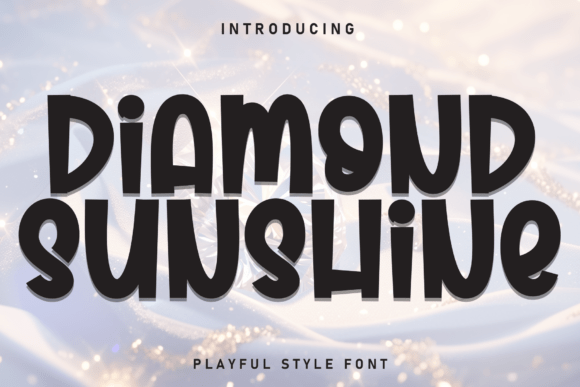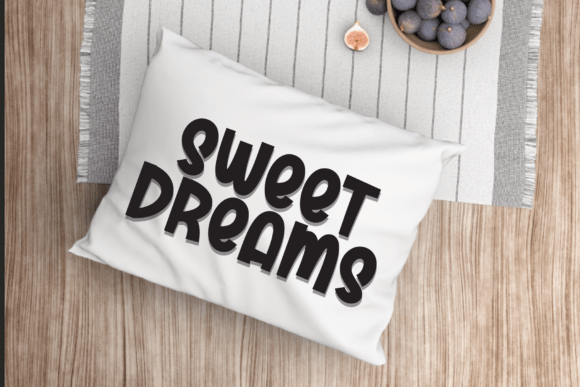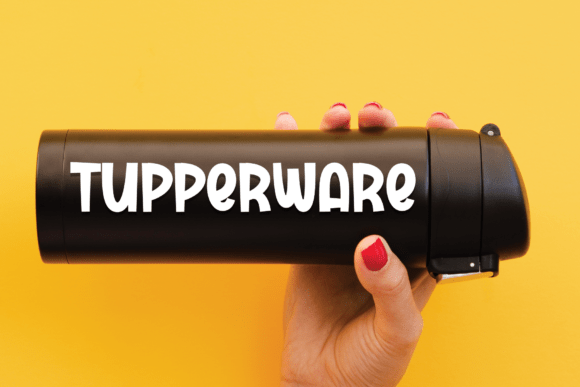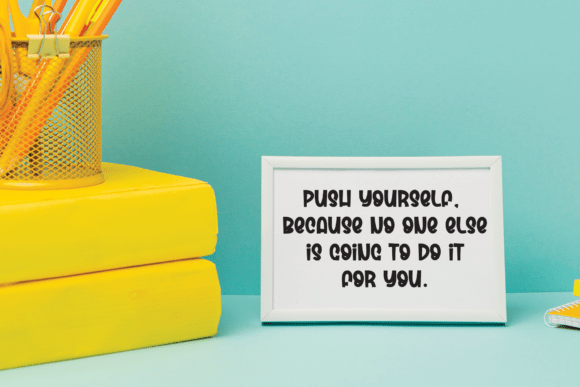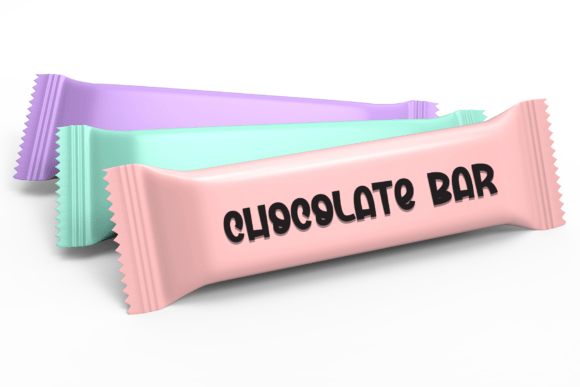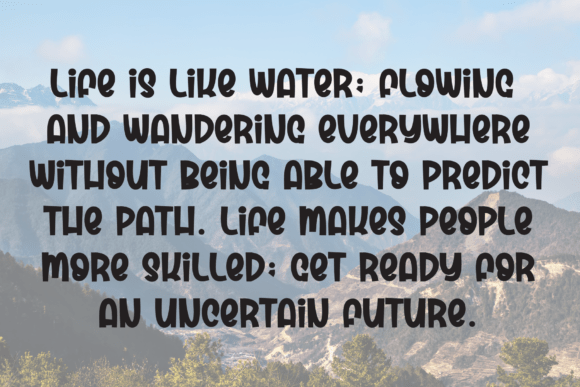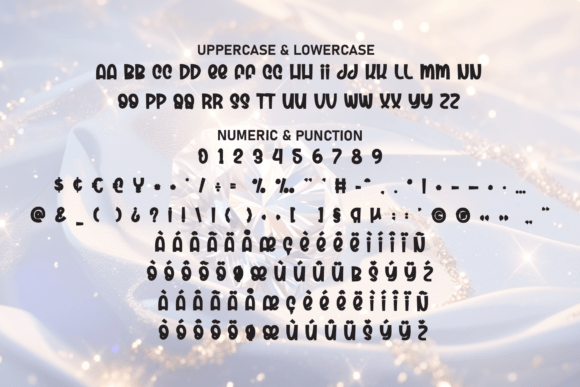
Adding a Splash of Joy to Your Designs
Remember that moment when you were a kid, sitting in a classroom, surrounded by colorful posters and stickers? The ones that made you feel happy and excited to learn? That’s exactly what the Diamond Sunshine Font aims to capture – the magic of childhood wonder and curiosity.
As a designer, you know how hard it can be to find the perfect font that brings a project to life. That’s where Diamond Sunshine Font comes in – a cheerful and bouncy handwritten font packed with personality. Its bold letters and smooth curves bring a fun, casual energy that’s perfect for adding a splash of joy to your designs, whether it’s a classroom poster, a kid’s project, or a greeting card.
Diamond Sunshine Font Key Features
- Size: Supports font sizes from 8 to 1000 points
- Resolution: Supports high-resolution fonts for print and web use (up to 300 DPI)
- Unique Characteristics: Unique, hand-drawn style with a mix of modern and vintage elements; Perfect for creating a unique and eye-catching visual identity
- Character Set: Includes a wide range of characters, including Latin, Cyrillic, and Greek alphabets, as well as punctuation and symbols
- Font Styles: Includes regular, bold, italic, and bold-italic font styles for added versatility
Diamond Sunshine Font Review
I recently had the chance to work with the Diamond Sunshine Font, and I must say, it’s a unique and eye-catching choice. ✨
- One of the standout features of this font is its ability to evoke a sense of warmth and optimism. It’s perfect for designs that require a touch of sunshine.
- The font is highly customizable, with a range of sizes and styles to choose from. This makes it ideal for both digital and print designs.
- The Diamond Sunshine Font also works well with a variety of color schemes, from bright and bold to soft and pastel.
However, there are some limitations to consider. ⚠️
- The font may not be suitable for designs that require a more formal or professional tone. It’s best used for creative or playful projects.
- The font can be quite busy, with intricate details that may be overwhelming in certain contexts.
Overall, I think the Diamond Sunshine Font is a great choice for designers who want to add a touch of whimsy and personality to their work. While it may not be the best fit for every project, it’s certainly a unique and eye-catching option.
Getting the Most Out of Diamond Sunshine Font
To get the most out of the Diamond Sunshine font, use it for:
- Party and event decorations
Remember to pair the Diamond Sunshine font with complementary colors and design elements to enhance its unique charm.
Alex Brush is a beautiful, elegant script font that’s perfect for use in headings, titles, and body text where you want to convey a sense of sophistication and refinement. It’s great for use in designs that require a touch of luxury and glamour.
Compared to Diamond Sunshine Font, Alex Brush Font has a more refined and polished feel, making it suitable for high-end designs that require a touch of elegance and sophistication. While Diamond Sunshine Font is more playful and whimsical, Alex Brush Font is more understated and refined.
Q: What is the character set and language support for the Diamond Sunshine Font?
The Diamond Sunshine Font includes a comprehensive character set, covering Latin, Cyrillic, and Greek alphabets, as well as a range of punctuation and symbol characters. The font also includes support for many languages, including English, Spanish, French, German, Italian, Portuguese, and many others. Please refer to the font’s documentation or